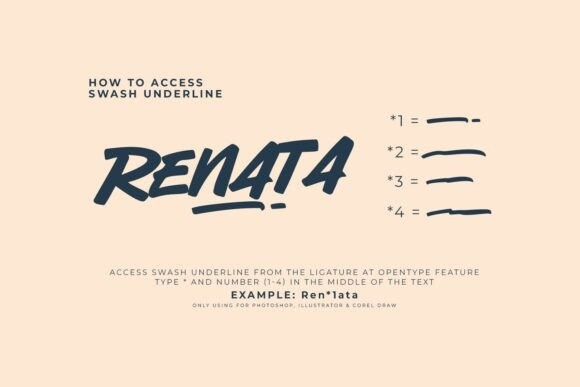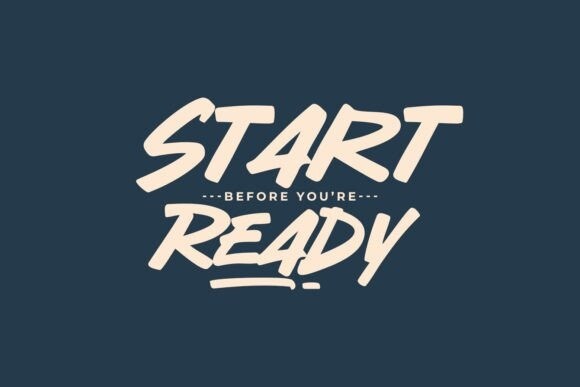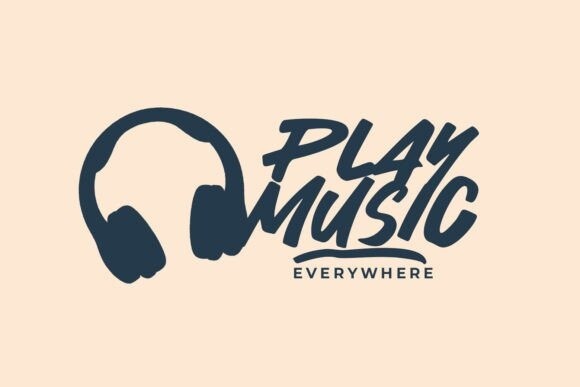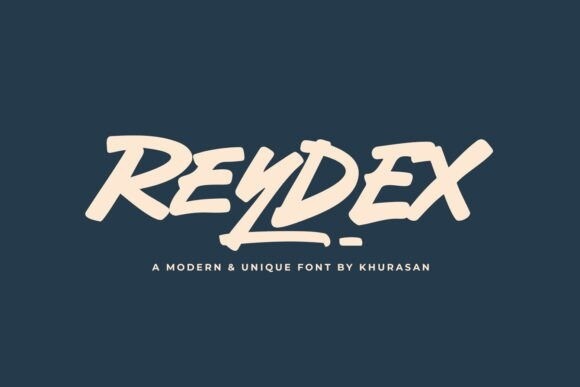
Reydex Font
Reydex Font is a cool and casual handwritten font crafted & designed by Khurasan. perfect for posters, logos, magazines, book covers, banners, and many more! Get this quirky handwritten font, and use it to create lovely designs! It can easily be matched to an incredibly large set of projects, so add it to your creative ideas and notice how it makes them stand out!